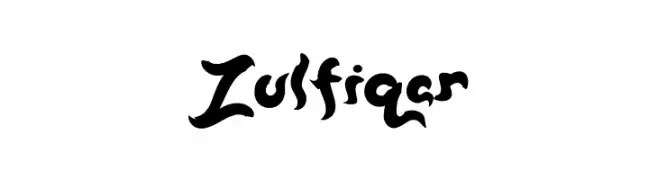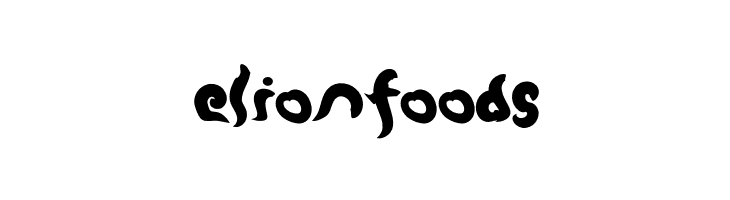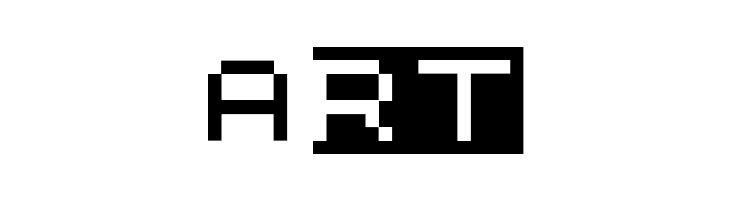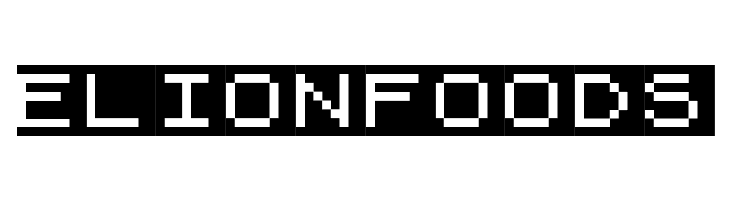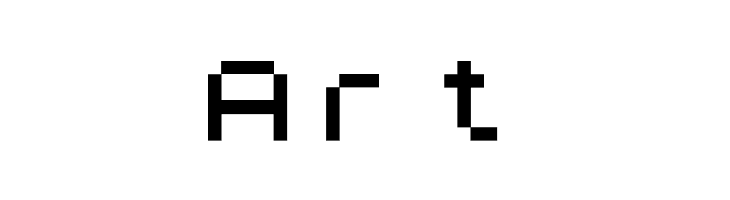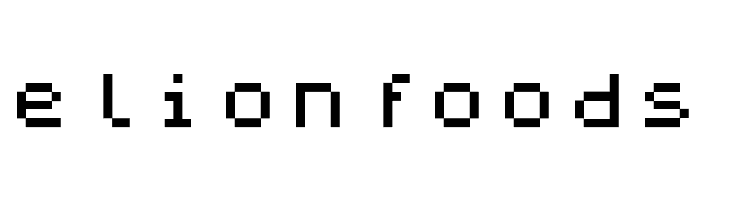
• Zulfiqar
A bold, artistic font with calligraphic influences and dynamic letterforms.
• ZX Spectrum
A pixelated, retro font inspired by early digital graphics.
• ZX81
A pixelated, monospaced typeface with a retro, digital aesthetic.